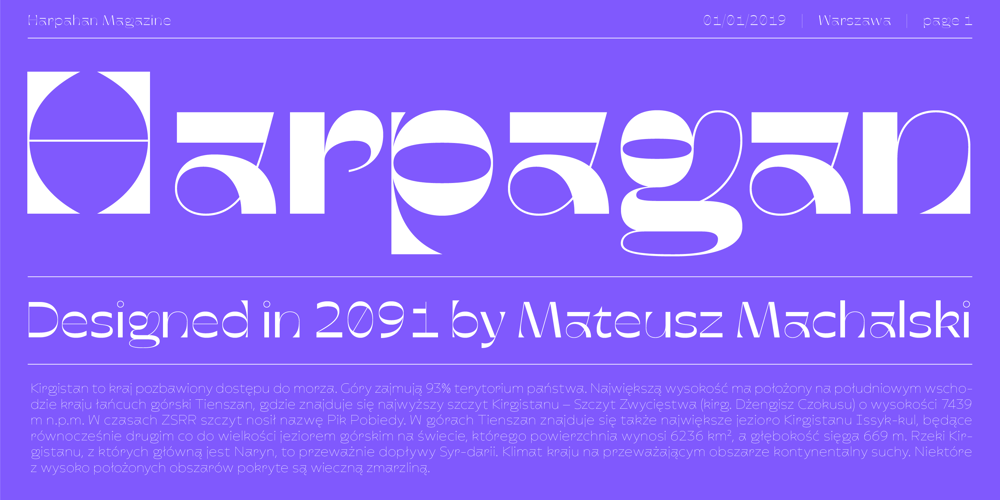
Harpagan
Harpagan font
Harpagan Font Family was designed by Mateusz Machalski and published by Machalski. Harpagan contains 5 styles and family package options. Harpagan is an experimental type family characterized by scalable construction from mono linear grotesk to display bold. I’ve designed this typeface after my trip to Kyrgyzstan, Uzbekistan and Kazachstan, where i’ve been impressed by the impact of arabic script in Asian style Cyrillics. The Harpagan type Family consist of 5 futuristic styles.